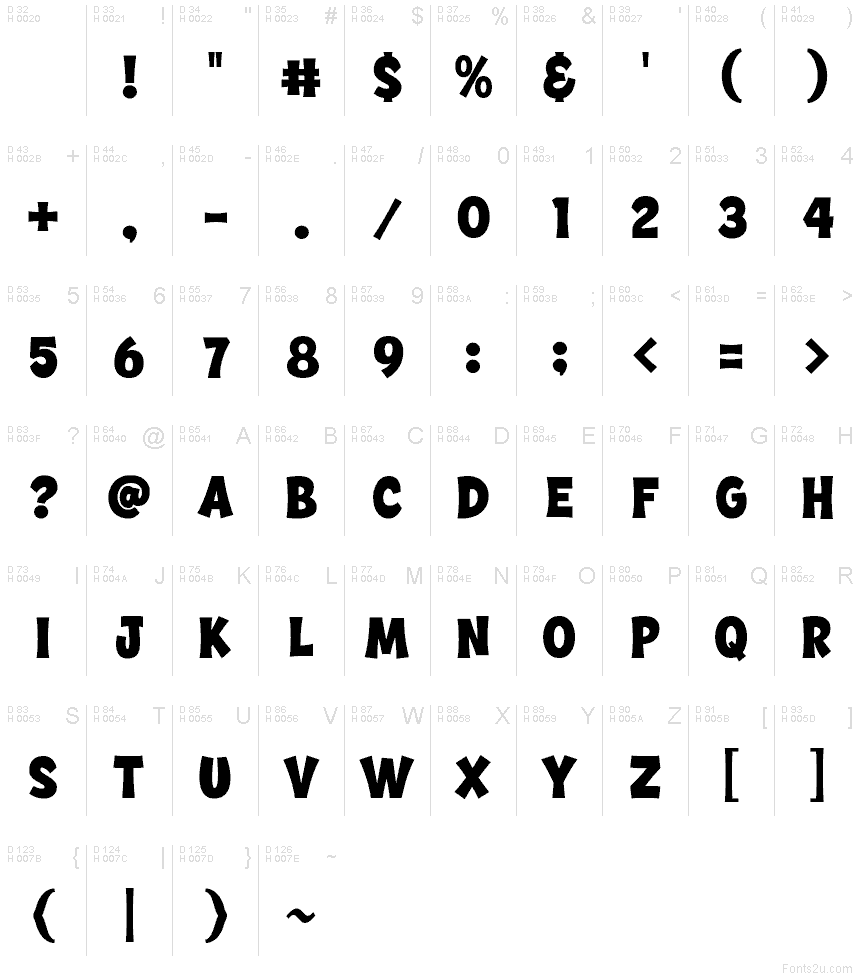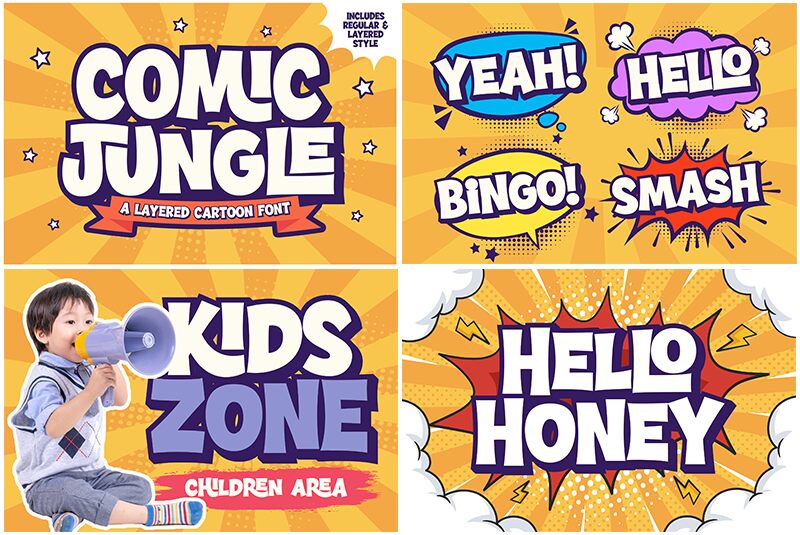
Comic Jungle
Comic Jungle font by Blankids is a free bold cartoon display font. Built for playful, adventure‑themed work, it thumps across the page with chunky, hand‑cut shapes, leafy curves, and lively irregular edges that feel stamped rather than typeset. The tight rhythm and heavy forms read loud and clear, turning headlines into big, grinning shouts.
Using Comic Jungle, you’ll nail kids’ book covers, summer camp posters, birthday invitations, snack packaging, YouTube thumbnails, game titles, and sticker sheets. The bouncy silhouette adds a friendly “outdoor” energy without getting messy, so messages stay punchy at a glance. For balance, pair this free font with a simple rounded sans in small text, and give the display line a touch of extra letterspacing at large sizes.